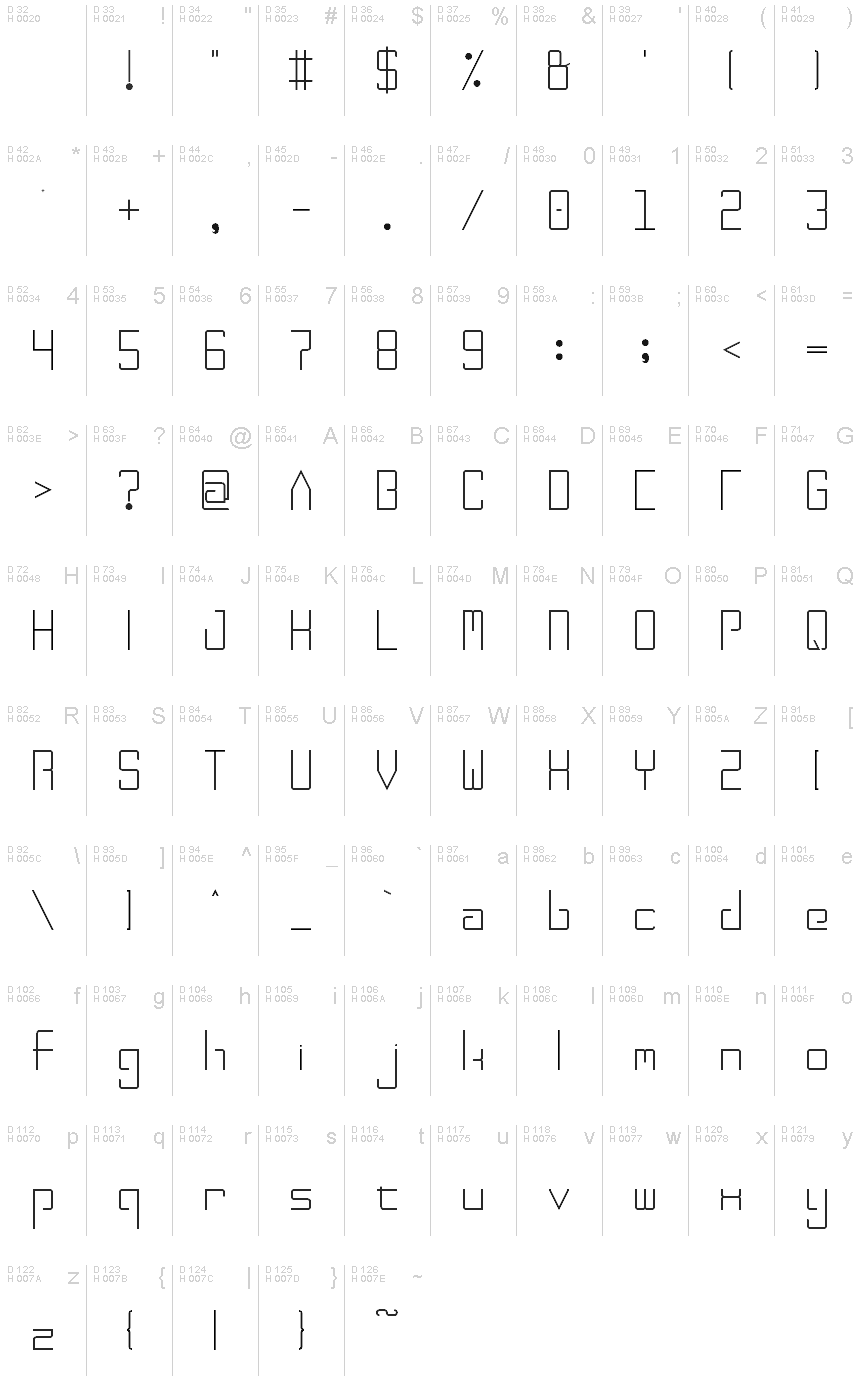
Aegris Outline Regular
A slightly futuristic and stencilesque design using halfwidth bricks.
The idea here was to make every glyph simple and minimal, not only in terms of geometry but line connections as well. Some glyphs are still more complex/less minimal than others, but I think it's a good amount of variety.